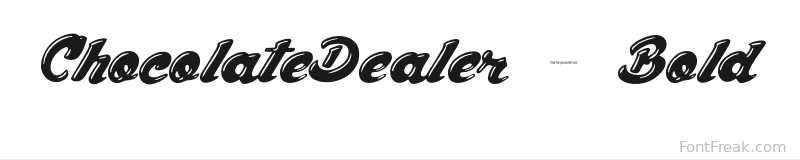
ChocolateDealer-Bold
The ChocolateDealer-Bold font by Billy Argel Fonts is a striking display typeface that embodies a playful yet elegant style. This decorative font features prominent, rounded strokes that create a bold presence, making it ideal for capturing attention. With its smooth curves and slightly exaggerated weight, the ChocolateDealer-Bold font exudes a sense of warmth and familiarity, perfectly suited for various creative applications.
Visually, the font showcases a consistent stroke weight with minimal contrast, resulting in a cohesive look that is both inviting and easy to read. The generous spacing between letters adds to its legibility, while the playful, curvy design elements lend a whimsical touch. This makes it an excellent choice for projects that aim to convey a friendly and approachable vibe.
Ideal use cases for the ChocolateDealer-Bold font include wedding invitations, where its romantic flair can enhance the overall theme; restaurant menus, where it can highlight special dishes or create a unique brand identity; and promotional materials for events like candy shops or bakeries, where the sweet, inviting nature of the font aligns with the offerings. Additionally, small business owners can leverage this font for branding purposes, making it perfect for labels or packaging designs.
Target audiences for this font include graphic designers looking for versatile display options, small business owners aiming to create memorable marketing materials, and content creators who want to add a touch of personality to their projects.
The ChocolateDealer-Bold font stands out not just for its aesthetic appeal but also for its versatility and ability to convey a sense of joy and playfulness. With its free download option, it invites creativity and exploration, making it a fantastic addition to any designer's toolkit.